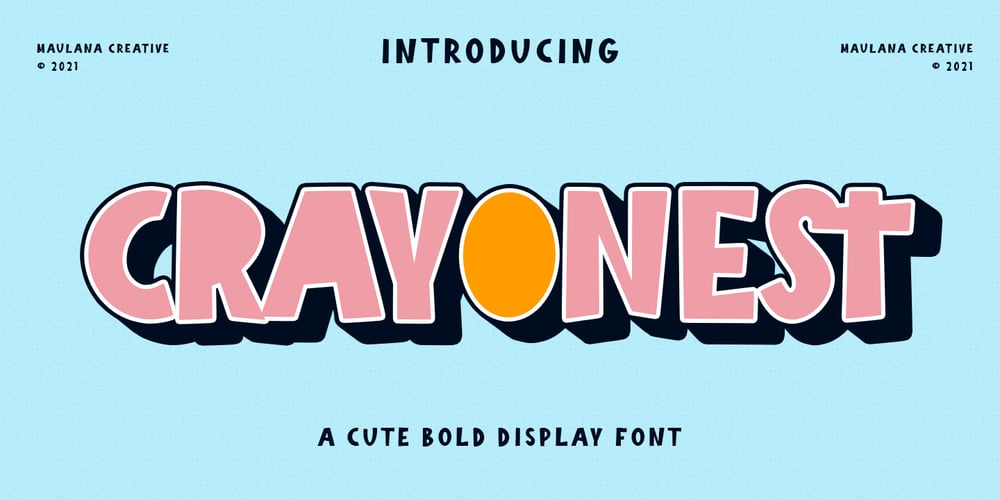
Crayonest Font Family was designed by Gilang Maulana and published by Maulana Creative. Crayonest contains 1 styles and family package options. Crayonest is a classic display font. With bold rough stroke, fun character with a bit of ligatures. To give you an extra creative work. Crayonest font support multilingual more than 100+ language. This font is good for logo design, Social media, Movie Titles, Books Titles, a short text even a long text letter and good for your secondary text font with sans or serif. Make a stunning work with Crayonest font. Cheers, Maulana Creative